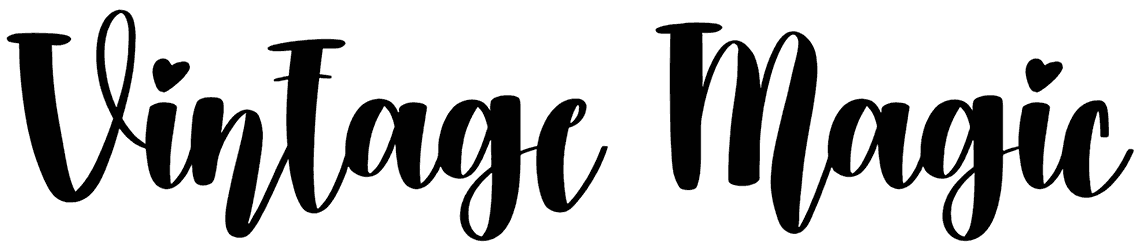
Vintage Magic Font
Just by looking at the letters of this lovely handwritten font, you can get great ideas for your next design. Vintage Magic has a smooth and natural style that can reflect a cheerful mood. This script font is able to throw a sweet vibe into your designs, such as posters, postcards, mugs, logos, or the like, and make them memorable.